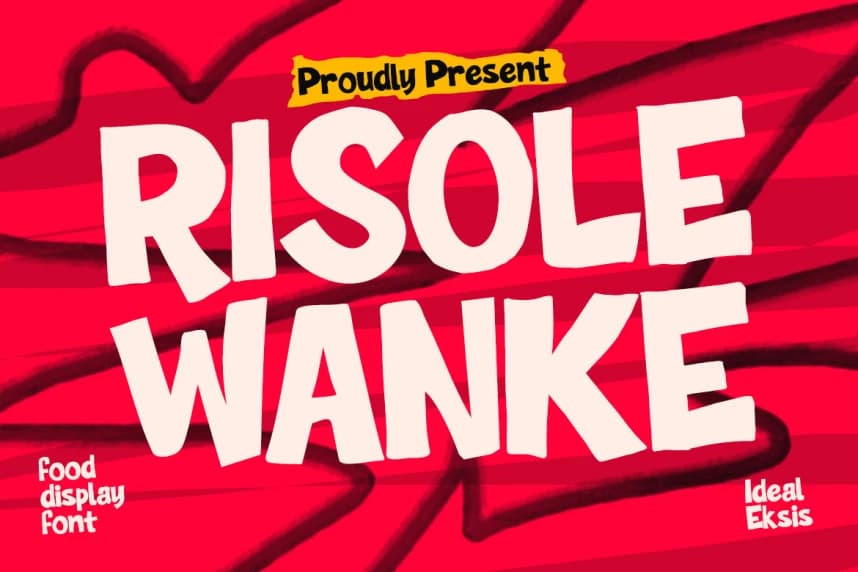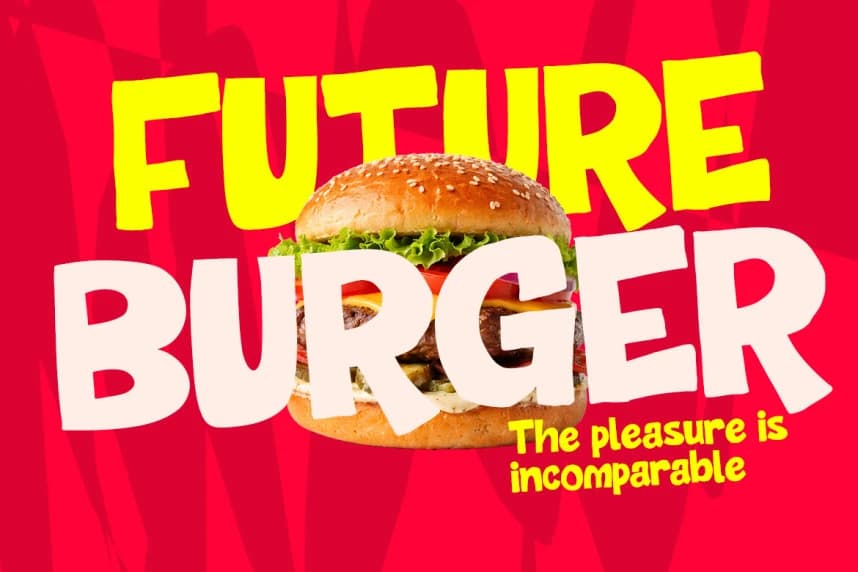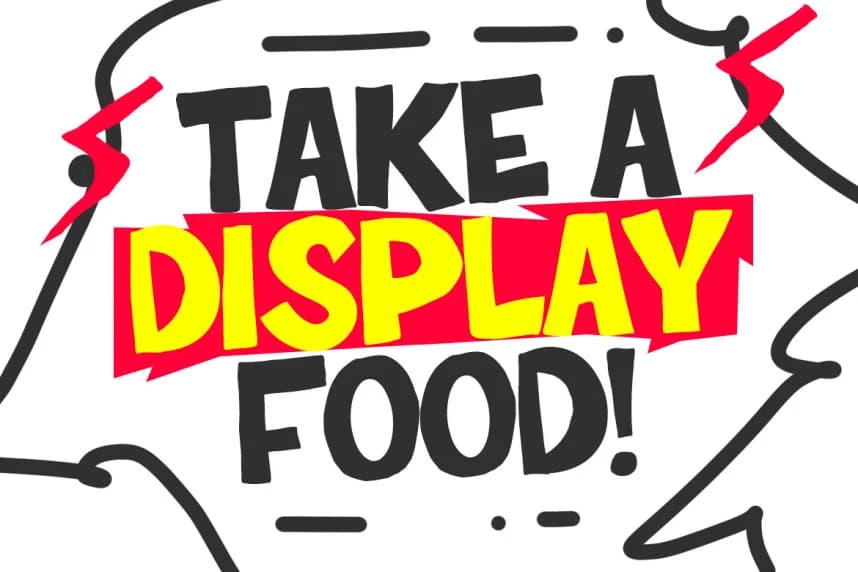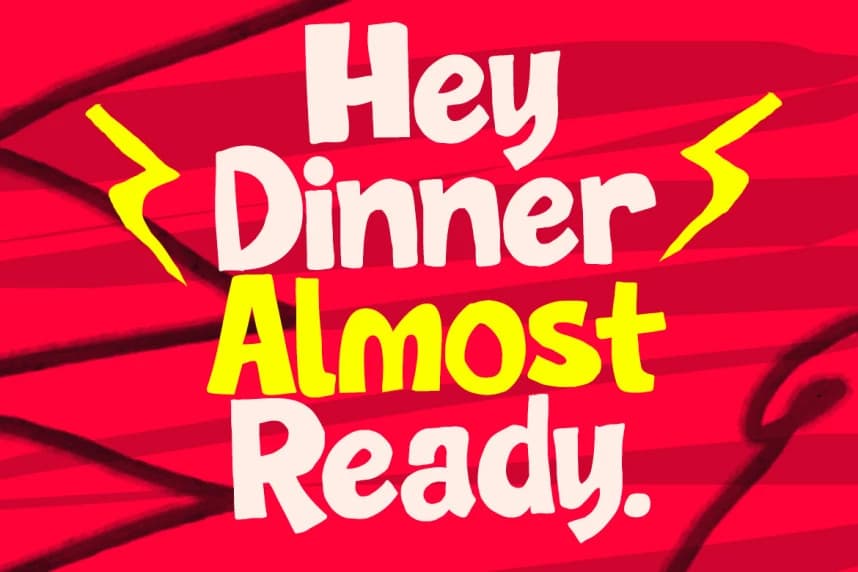
Risole Wanke Font
Risole Wanke Font - This font features heavy, chunky letterforms with an organic, hand-drawn quality that exudes energy and friendliness.